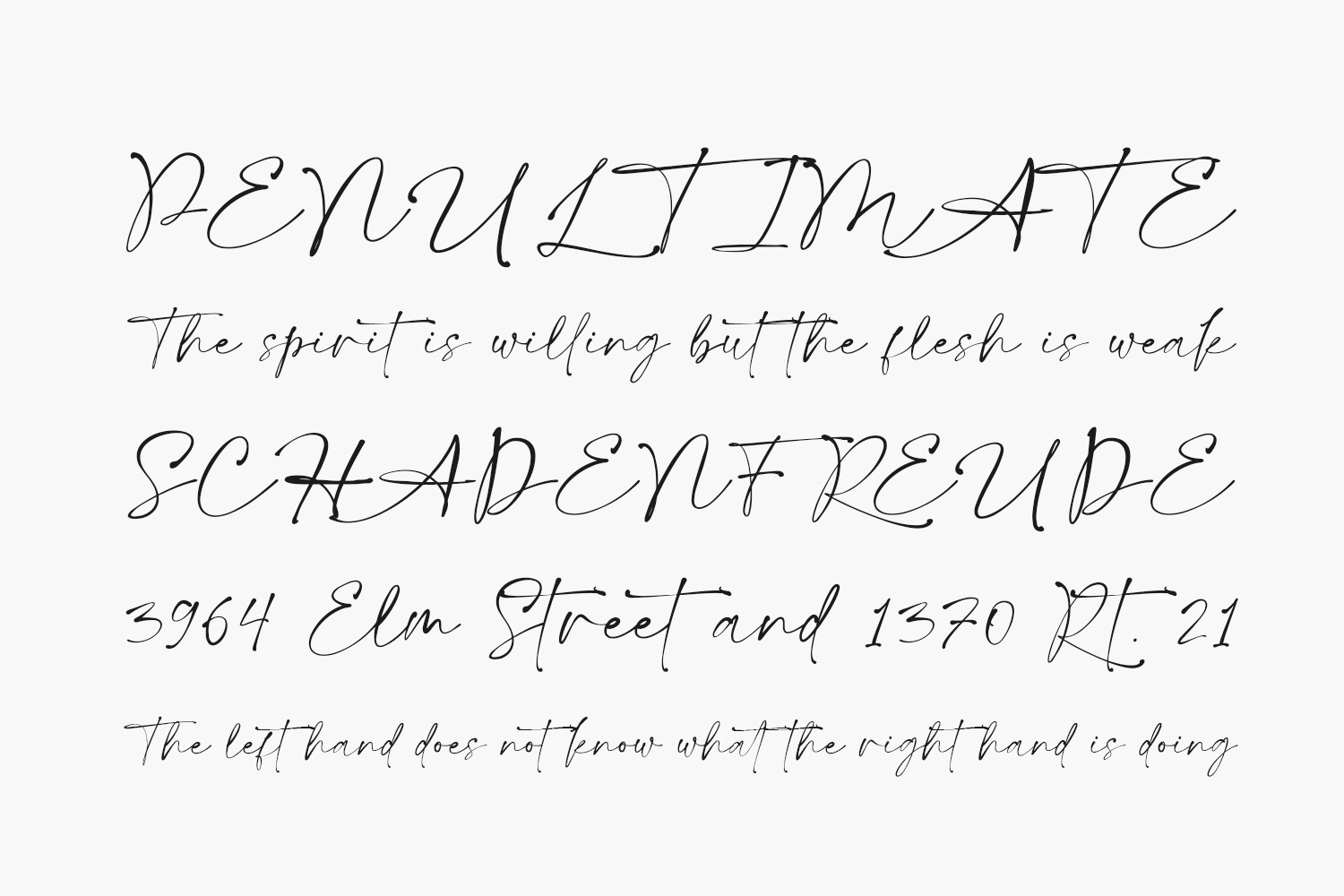
Best Soullmate Free Font is a stylish and laid-back script font. Best Soullmate Free Font was designed by Faqih Fawaji and is free for personal use only. Please purchase the full version for commercial use.